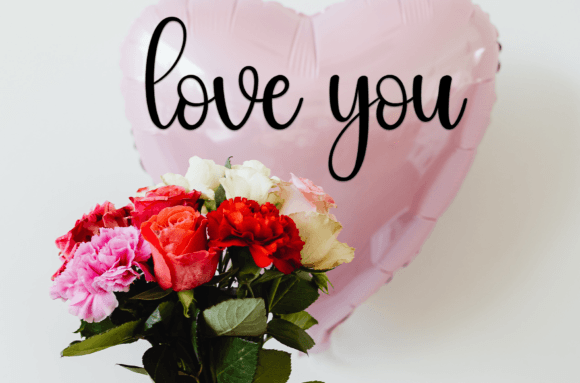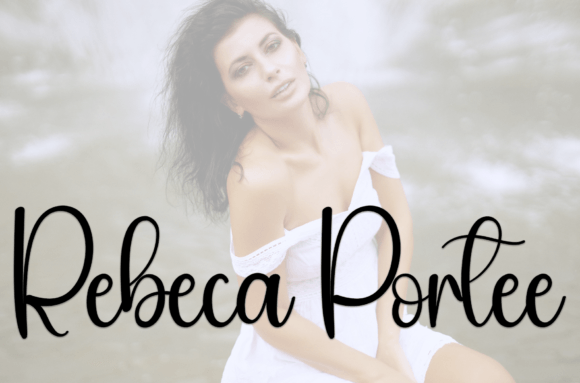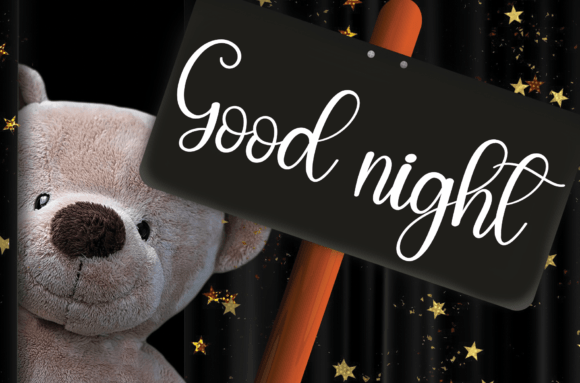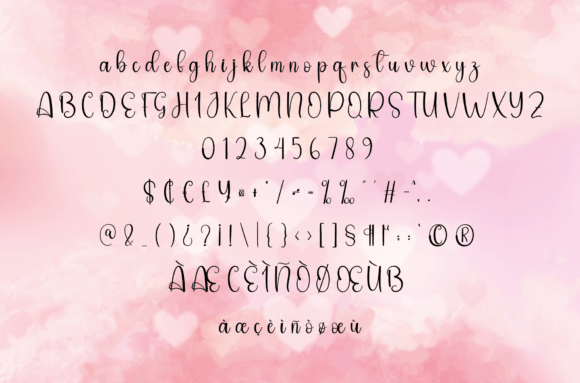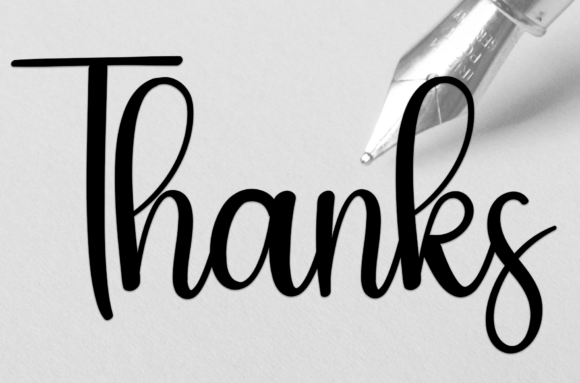
The Beautiful Font: Adding a Touch of Whimsy to Your Designs
Are you looking for a font that can add a dash of fun and friendliness to your designs? Look no further than the Beautiful Font! This sweet and friendly handwritten font is perfect for crafters and designers who want to create unique and eye-catching projects. In this article, we’ll dive into the world of Beautiful Font and explore its features, uses, and benefits.
What is Beautiful Font?
Beautiful Font is a handwritten font that exudes a sense of warmth and approachability. Its cute and fun design makes it ideal for writing wedding invitations, cards, or any other design that might need a touch of whimsy. The font’s friendly and bubbly personality shines through in its rounded letters and flowing connections, making it perfect for projects that require a personal touch.
Features of Beautiful Font
So, what makes Beautiful Font so special? Here are some of its key features:
- Handwritten design: Beautiful Font is a handwritten font that mimics the look and feel of handwritten text. Its imperfections and quirks give it a personal and human touch.
- Cute and fun: The font’s design is playful and fun, making it perfect for projects that require a lighthearted and carefree vibe.
- Versatile: Beautiful Font can be used for a wide range of projects, from wedding invitations and cards to posters, flyers, and more.
- Easily readable: Despite its handwritten design, Beautiful Font is easy to read and understand, making it perfect for body text and headings.
Uses of Beautiful Font
Beautiful Font is a versatile font that can be used for a wide range of projects. Here are some ideas to get you started:
- Wedding invitations: Beautiful Font is perfect for writing romantic and whimsical wedding invitations that set the tone for a special day.
- Cards and stationery: The font’s cute and fun design makes it ideal for creating greeting cards, thank-you cards, and other stationery items.
- Posters and flyers: Beautiful Font can add a touch of whimsy to your posters and flyers, making them stand out from the crowd.
- Social media graphics: The font’s friendly and approachable design makes it perfect for creating social media graphics that engage and delight your audience.
Benefits of Using Beautiful Font
So, why should you use Beautiful Font in your designs? Here are some benefits to consider:
- Adds a personal touch: Beautiful Font’s handwritten design gives your projects a personal and human touch that sets them apart from more formal fonts.
- Creates a fun and playful vibe: The font’s cute and fun design can add a lighthearted and carefree vibe to your projects, making them more engaging and appealing.
- Easy to read and use: Beautiful Font is easy to read and understand, making it perfect for body text and headings.
- Versatile and flexible: The font can be used for a wide range of projects, from wedding invitations to posters and flyers.
Tips for Using Beautiful Font
Here are some tips for using Beautiful Font in your designs:
- Use it for headings and titles: Beautiful Font is perfect for headings and titles, where its cute and fun design can add a touch of whimsy.
- Pair it with other fonts: The font pairs well with other fonts, such as sans-serif fonts, to create a visually appealing contrast.
- Experiment with colors: Beautiful Font looks great in a range of colors, from bright and bold to soft and pastel.
- Use it sparingly: While Beautiful Font is a beautiful font, it can be overwhelming if used too much. Use it sparingly to create a sense of balance and harmony.
In conclusion, Beautiful Font is a sweet and friendly handwritten font that’s perfect for adding a touch of whimsy to your designs. Its cute and fun design makes it ideal for writing wedding invitations, cards, or any other design that might need a fun touch. With its versatility, readability, and flexibility, Beautiful Font is a great addition to any designer’s toolkit.